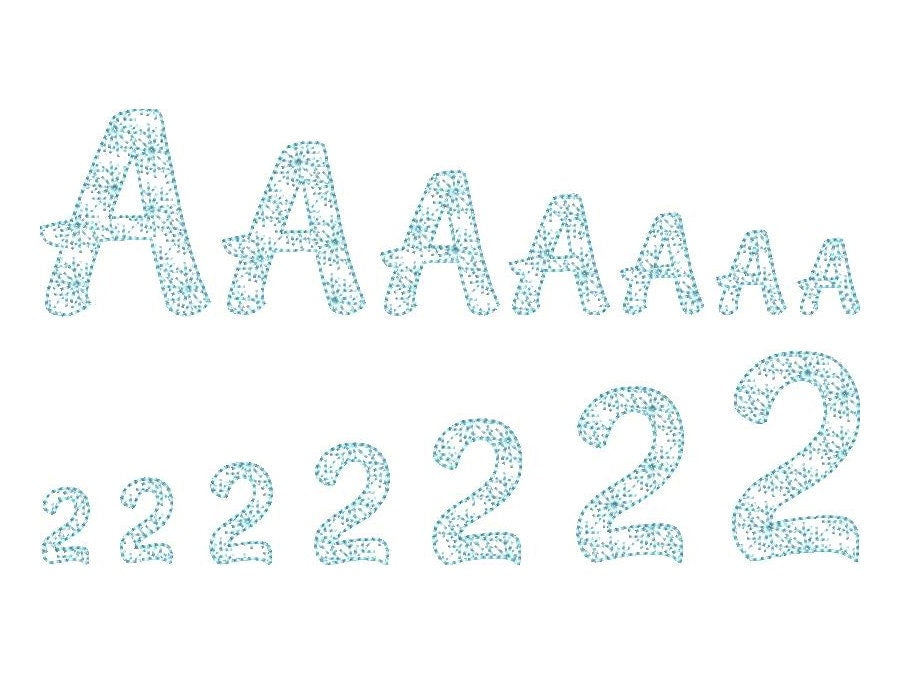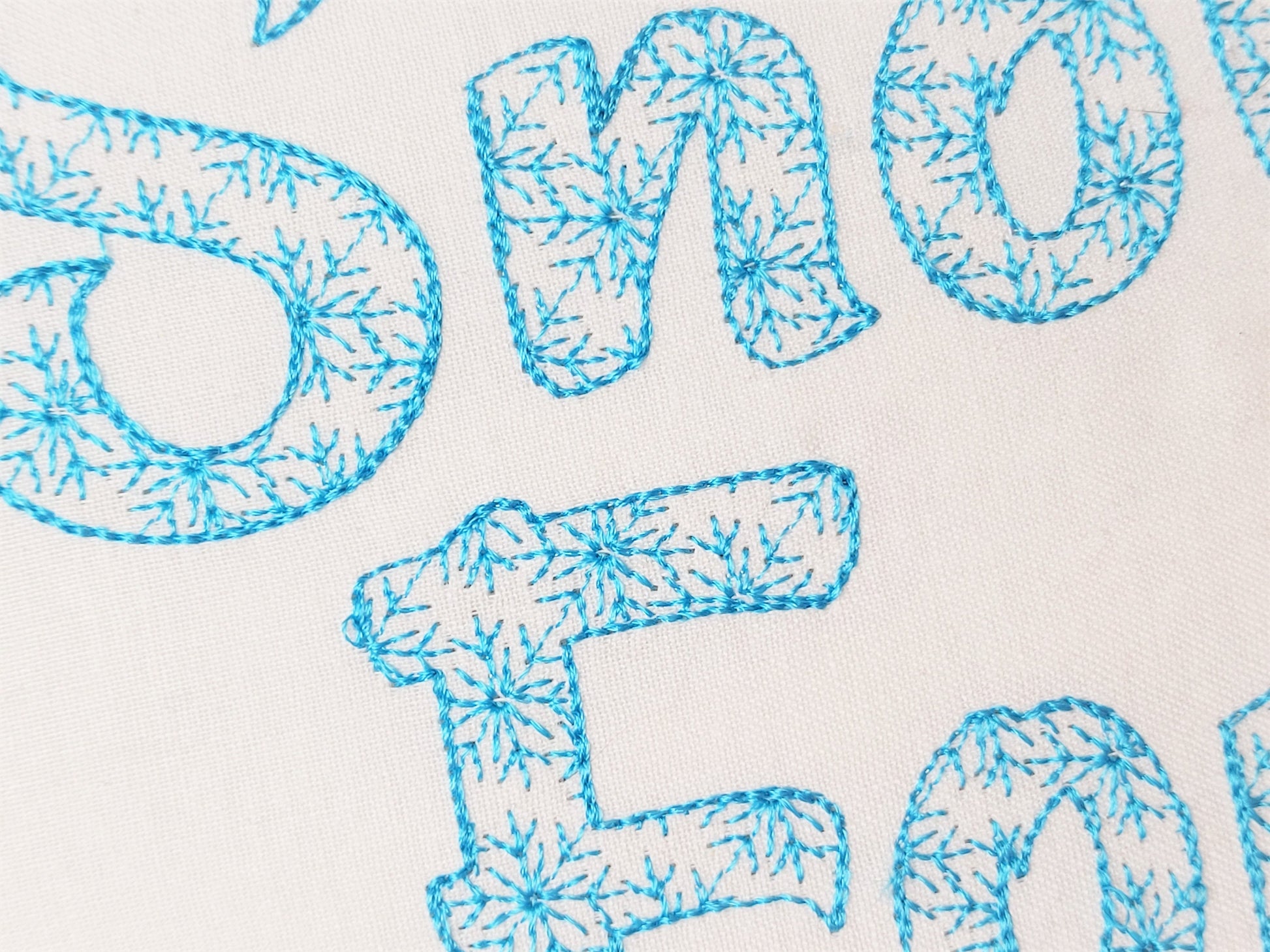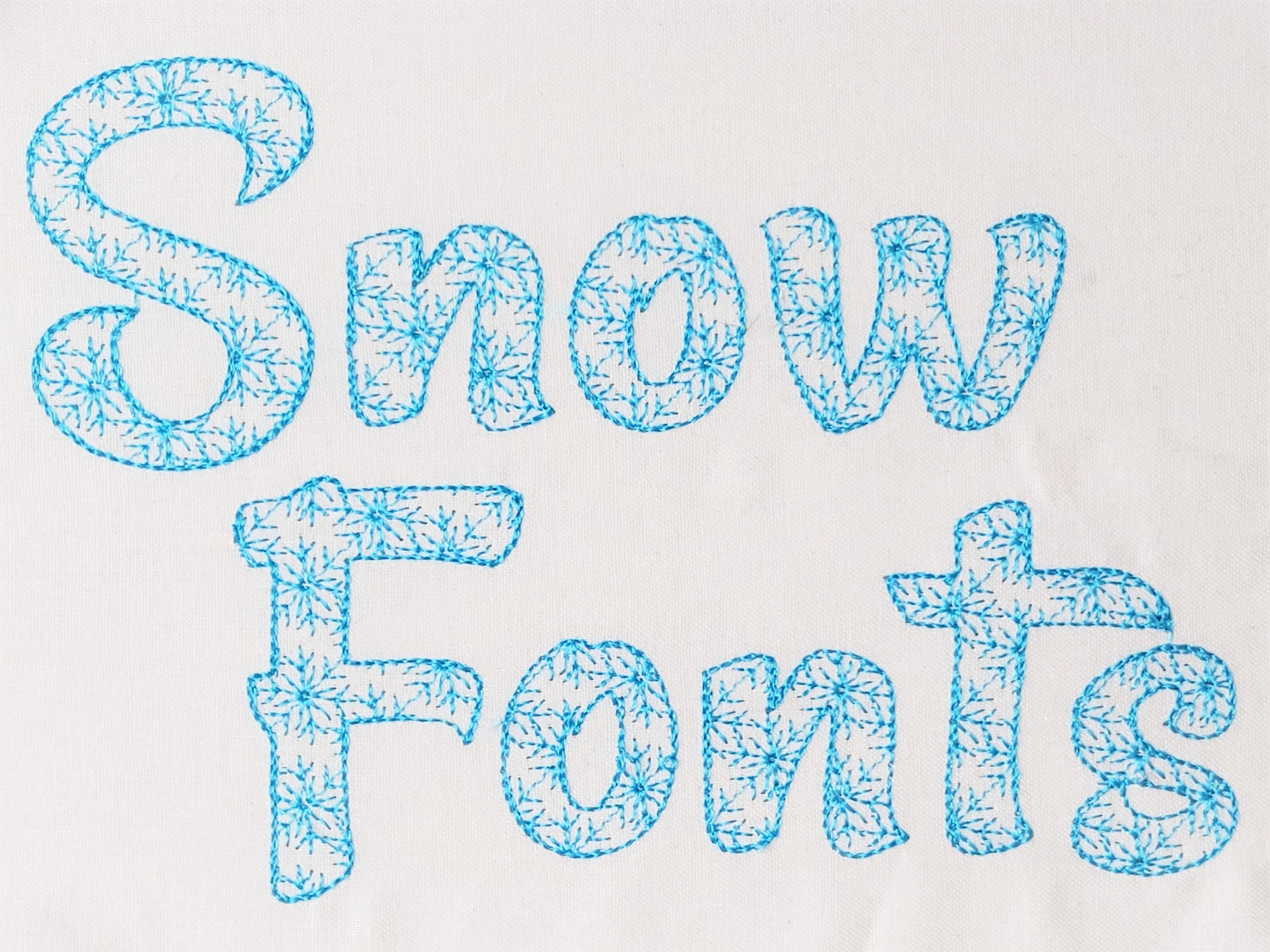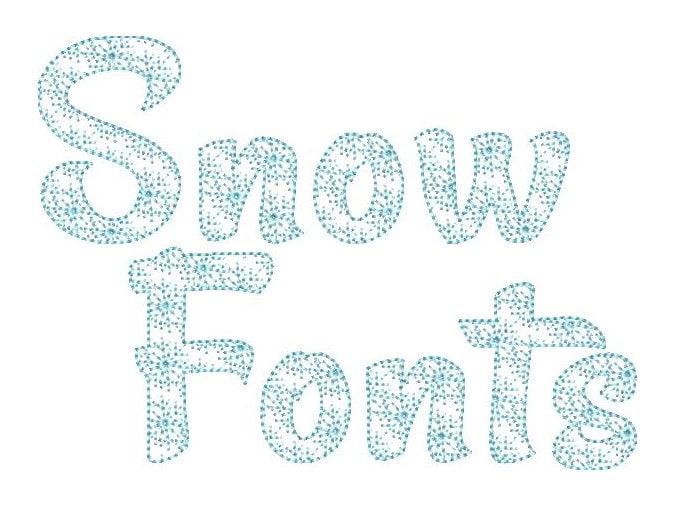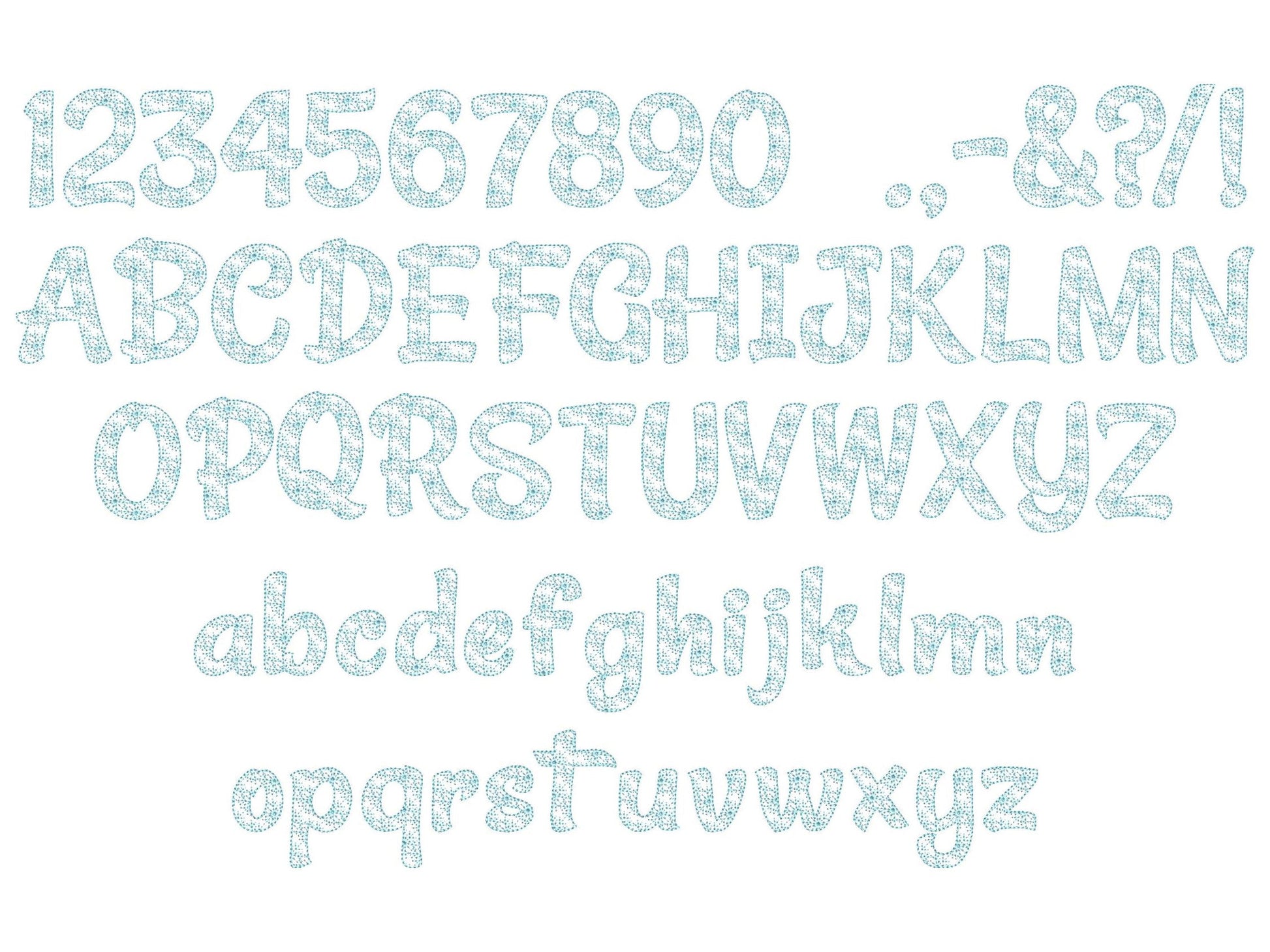
Winter Holidays Snowflake Font
Sizes (inches): 0.8", 0.9", 1", 1.2", 1.5", 1.8", 2.1"
Or click to open the linkA winter snowflake font in light sketch stitching that looks like lace. Quick and pretty for Christmas stockings, sweaters, ornaments and small names.
Uppercase and lowercase letters, numbers 0 to 9 and punctuation, in seven mini sizes: 0.8, 0.9, 1, 1.2, 1.5, 1.8 and 2.1 inches. Quick outline stitching lets the fabric show through.
- Light stitch snowflake font
- Uppercase and lowercase letters, numbers 0-9, punctuation
- 7 sizes, 0.8 to 2.1 in